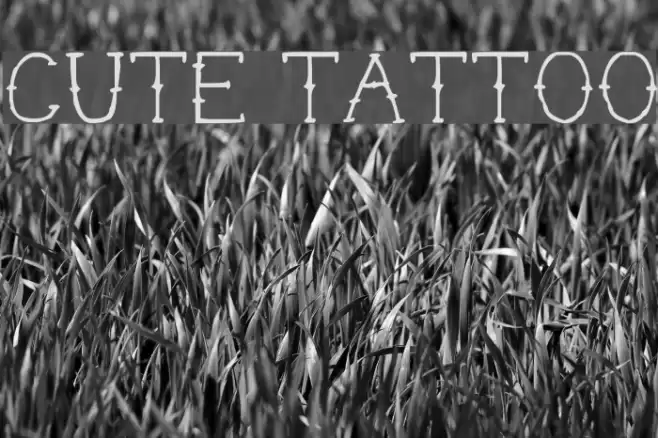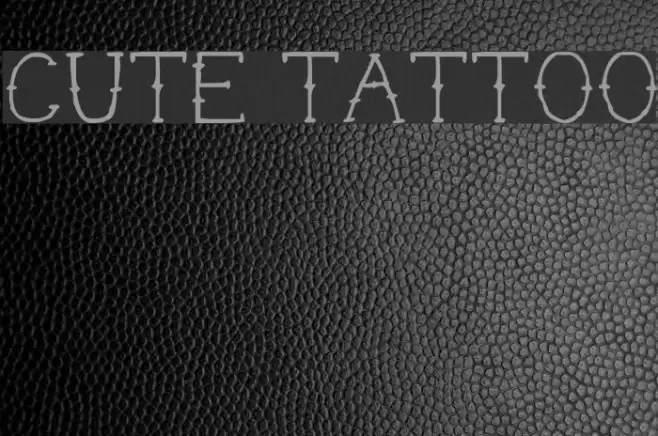
Cute Tattoo Font
Cute Tattoo Description
This font features a playful and whimsical design, characterized by its irregular, hand-drawn strokes that give it a unique and artistic appearance. The letters have a slightly uneven baseline, adding to the casual and informal feel. The strokes are thin with small decorative elements at the ends, resembling a sketch-like style. This font is ideal for projects that require a fun and creative touch, such as children's books, playful branding, or artistic posters. Its distinct style makes it stand out, while still maintaining legibility.
A playful, hand-drawn font with irregular strokes and a whimsical style from Uncategorized fonts.
- Proposed Projects: Children's books, playful branding, artistic posters, creative invitations.
- Overall Style: Whimsical, Artistic
- Use Case: Headlines, Logos, Creative projects